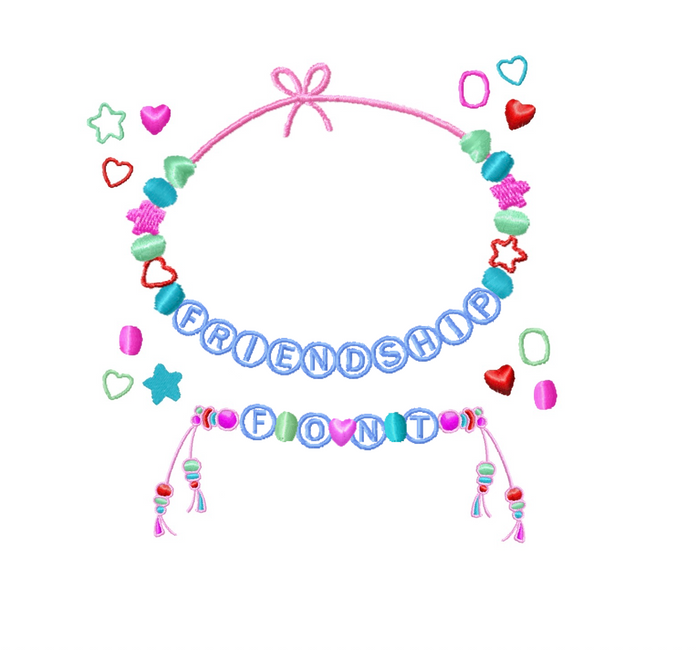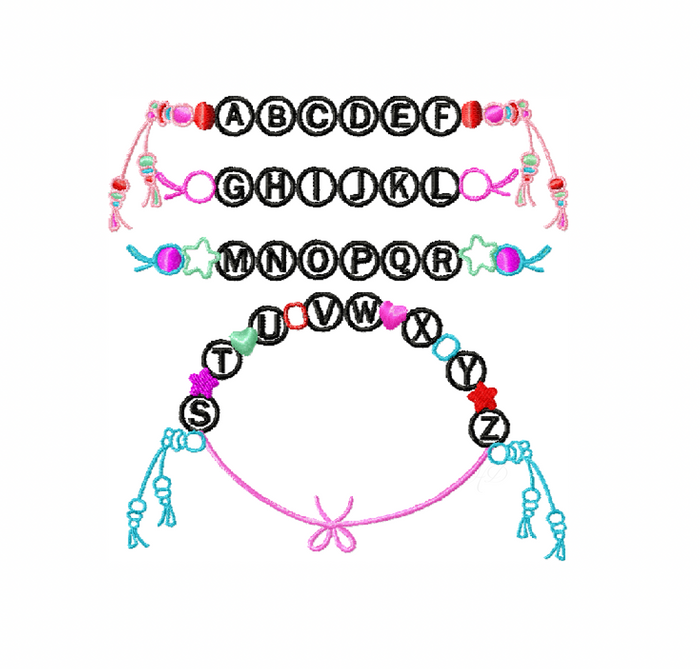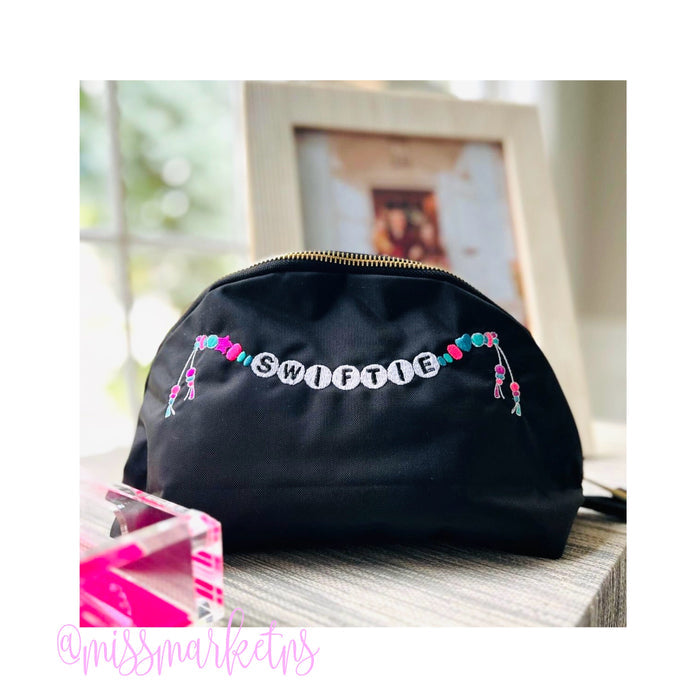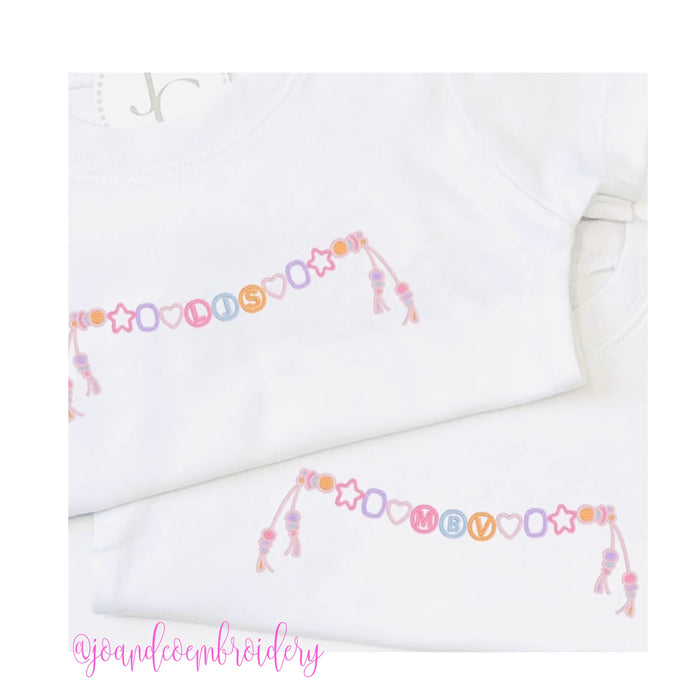
4x4 Friendship Bracelet Embroidery Font Package
Elevate your crafting experience with the 4x4 Friendship Bracelet Embroidery Font Package. This dynamic collection includes a variety of embroidery files tailored for creating personalized friendship bracelets, seamlessly fitting into your DIY projects. Each uppercase letter measures 1/3", ensuring your designs are both stylish and legible.